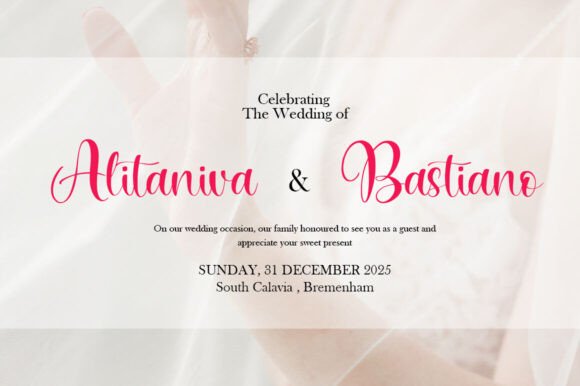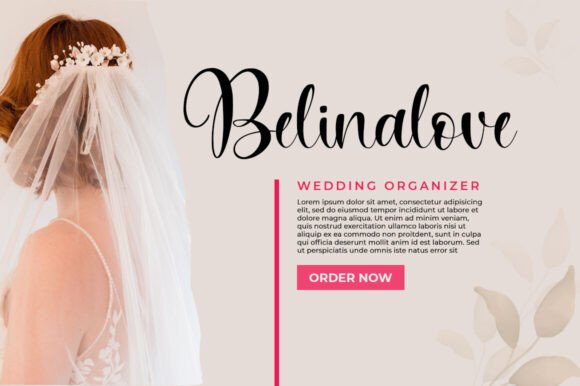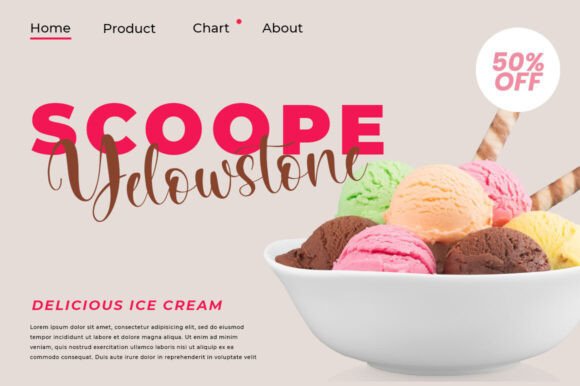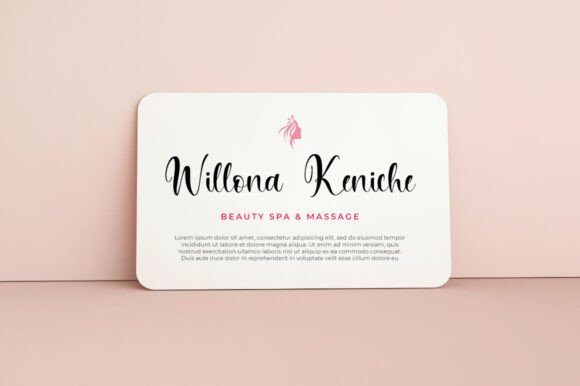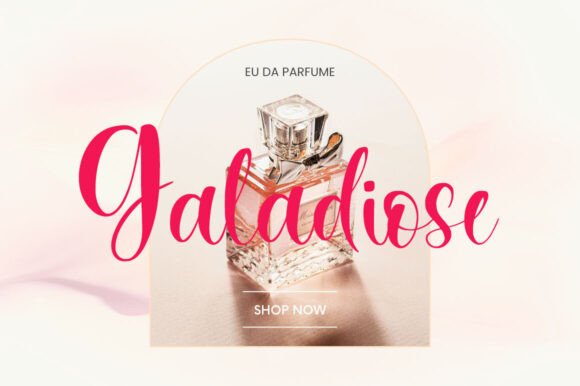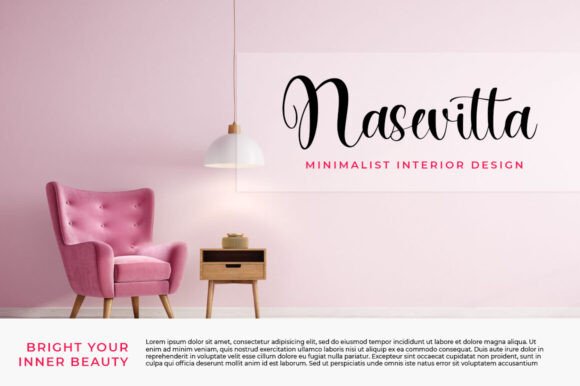
Introduction to Rachettiva Font
Do you remember the moment when you finally nailed the perfect design for your client’s logo? The one that made their brand stand out and left a lasting impression? For designers, those ‘aha’ moments are what make all the hard work worth it. And, let’s be honest, they’re what make our job so rewarding.
One of the key elements that can elevate a design from good to great is the choice of font. That’s where the Rachettiva Font comes in – a gorgeous, high-quality script font that’s perfect for a wide range of creative projects. With its elegant, handwritten feel, it’s an ideal choice for designers looking to add a touch of sophistication to their work.
Key Features of Rachettiva Font
- High-quality typography with a modern and creative design, perfect for any project.
- Features a transparent background, allowing for easy layering and customization in your creative project.
- Designed to be versatile and adaptable, making it suitable for a wide range of design applications, from branding to digital art.
- Perfect for designers looking for a unique and eye-catching font to elevate their creative project and leave a lasting impression.
Honest Review: Rachettiva Font
I recently stumbled upon the Rachettiva Font, and I must say it’s been a game-changer for my creative projects. The font is perfect for designs that require a unique, high-quality look without breaking the bank.
- ✨ Transparent background for seamless integration
However, I do have a few concerns about the font’s limitations:
- ⚠️ Limited font styles and weights available
Overall, I’m impressed with the Rachettiva Font. It’s a great addition to any designer’s toolkit, and its free download makes it an attractive option for anyone working on a creative project. While it may have some limitations, I think it’s well worth the download.
The Rachettiva Font is ideal for use in creative projects, such as graphic design, digital art, and web design. Its high quality and unique style make it a valuable design resource.
Tips for Getting the Most Out of Rachettiva Font
To get the most out of Rachettiva Font, try using it with a transparent background to create a striking design. You can also experiment with different font sizes and styles to add depth and interest to your creative project.
Alternatives to Rachettiva Font
Open Sans is a highly legible sans-serif font ideal for creative projects that require a clean and modern design. It’s available for free download and is widely used in various design resources. This font is suitable for body text and headings, and its transparent background makes it perfect for use on any background.
Open Sans is a great alternative to Rachettiva Font as it offers a similar modern feel, but with a more neutral and versatile design. It’s also highly customizable and suitable for both digital and print designs.
Lato is a beautiful sans-serif font designed for high-quality designs that require a touch of elegance. It’s available for free download and features a transparent background, making it perfect for use on any design project. This font is suitable for headings and body text, and its modern design makes it ideal for creative projects.
Does the Rachettiva Font have a transparent background, making it suitable for use on colored backgrounds?
Yes, the Rachettiva Font has a transparent background, making it suitable for use on colored backgrounds. This allows designers to create high-quality designs with a professional finish.
Can I use the Rachettiva Font for web design, or is it only suitable for print design?
The Rachettiva Font is suitable for use in both web design and print design. The font is optimized for use on screens and paper, making it a versatile design resource for a range of creative projects.